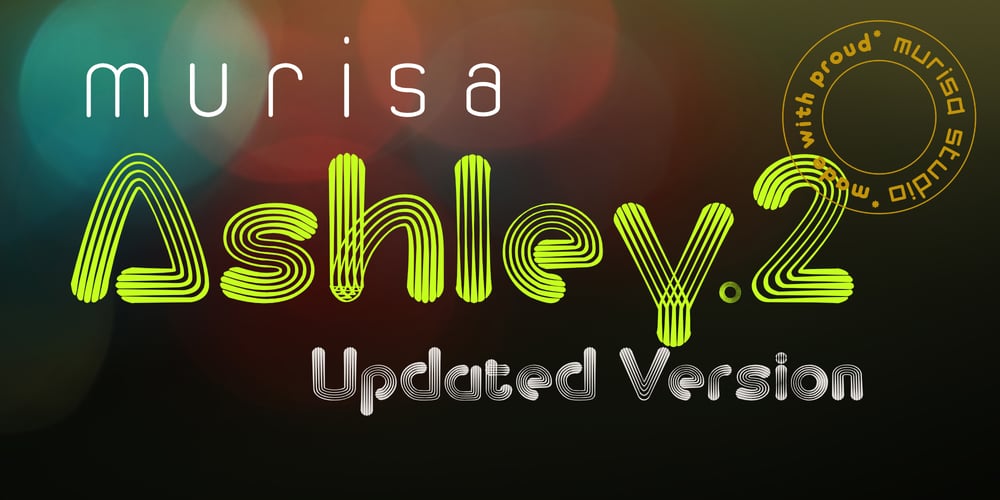
Murisa Ashley Font Family was designed by Lili Sadili and published by Murisa Studio. Murisa Ashley contains 2 styles and family package options. Today we want to show you all a new, unique font, which includes dynamic and aesthetic lines. Murisa Ashley is our newest font. This font is so beautiful and so powerful in its retro feel. Things that can help you in making designs or product names with dynamic shapes. Murisa Ashley is made with the premise of the lines on each letter. Use this font, and have glorious success with you.